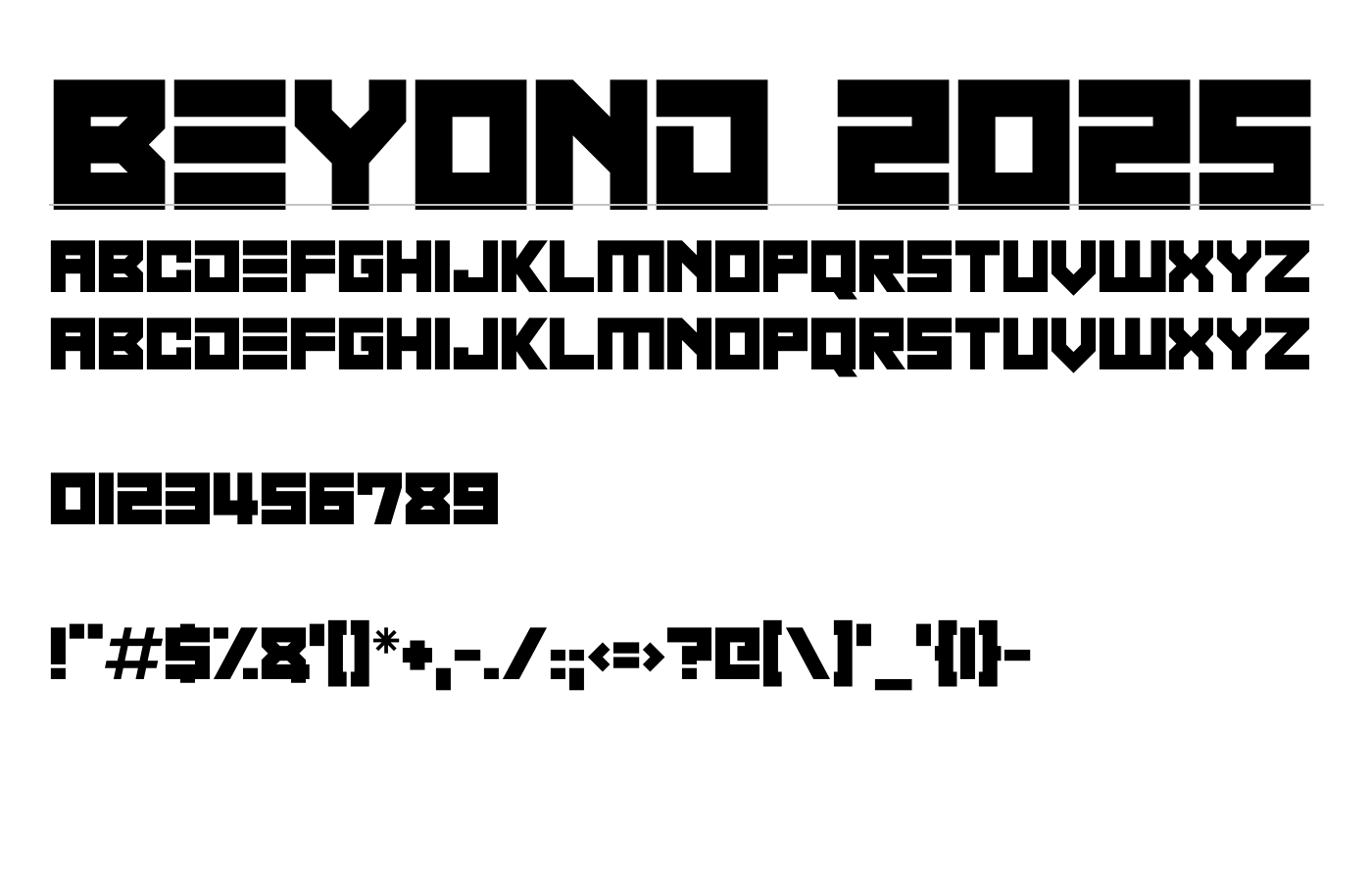
Beyond 2025 is a bold, geometric sans serif font with a futuristic and tech-inspired design. Its strong, blocky letterforms, high contrast between thick strokes and sharp angles, and square shapes convey a modern, edgy personality perfect for sci-fi, technology, and innovative branding. This font works best for impactful headlines, logos, and digital media where a cutting-edge and commanding presence is needed.
Beyond 2025 Font
About Beyond 2025 Font